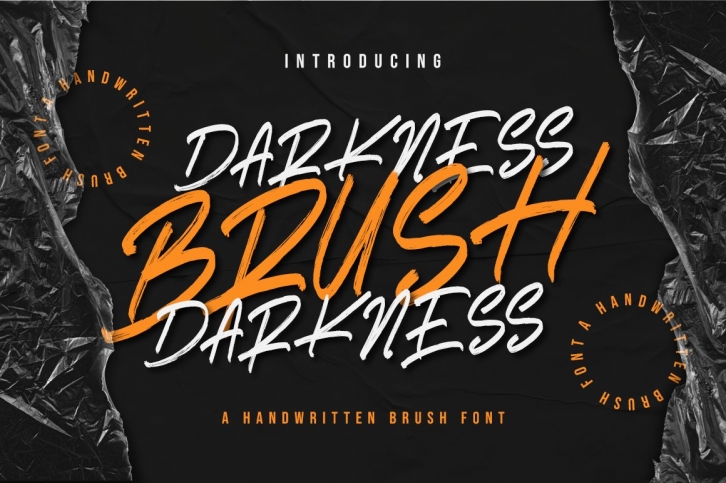
Darkness Brush is a trendy and unique font with an authentic style. It was designed by Rockboy Studio and it's a great choice for creative people who need such a font. It was released on April 12, 2021 and the file size is 20.98 MB. Darkness Brush will add an organic vibe to any design idea!